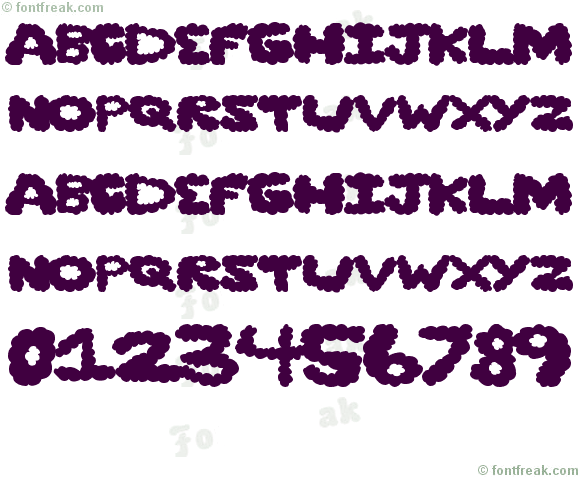
The Cloudstorm font by Xerographer Fonts is a distinctive display typeface that captures the whimsical essence of clouds in its design. Released in 2012, this freeware font features a playful, rounded style with organic forms that evoke a sense of lightness and creativity. The stroke weight is consistent, with a smooth, soft appearance, while the spacing between the characters is generous, allowing for easy readability. The font’s unique decorative elements mimic fluffy clouds, making it an eye-catching choice for various applications.
Ideal for use in projects such as children's book covers, playful branding for cafes, or vibrant event flyers, the Cloudstorm font excels in settings where a friendly and approachable aesthetic is desired. It also works well for social media graphics and website headers aimed at a youthful audience. Graphic designers and small business owners will find this font particularly appealing, as it adds a touch of personality to their creative work.
What sets the Cloudstorm font apart is its ability to convey a sense of fun while maintaining clarity and legibility. Its playful character shapes encourage engagement and draw attention, making it perfect for projects that seek to leave a memorable impression. Whether you're designing a whimsical invitation or crafting a lively advertisement, the Cloudstorm font free download offers an innovative solution that stands out in today's crowded visual landscape. With its unique charm and versatility, it's an excellent addition to any designer's toolkit, ensuring that your creative endeavors are both striking and effective.